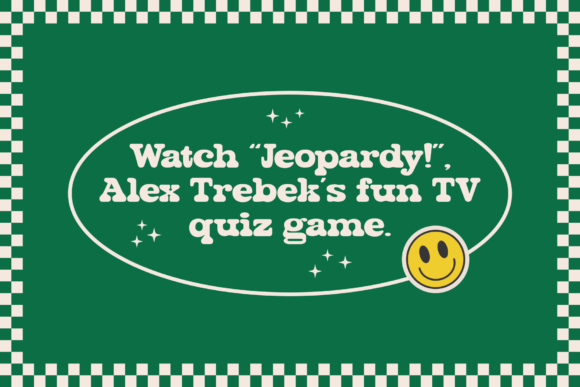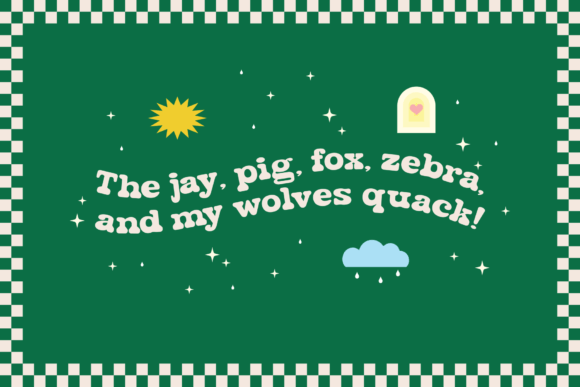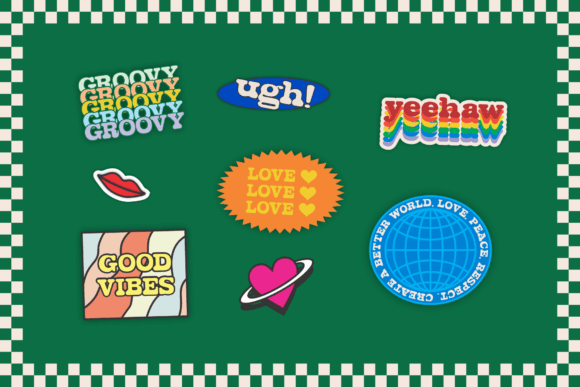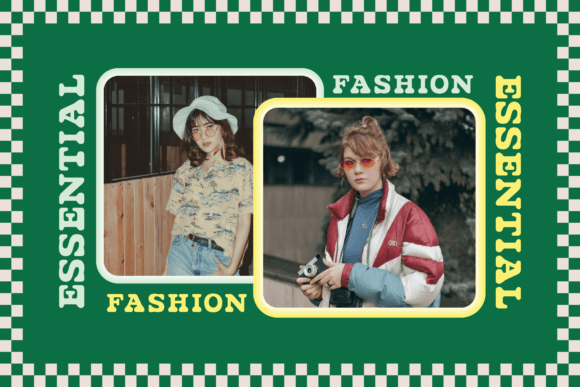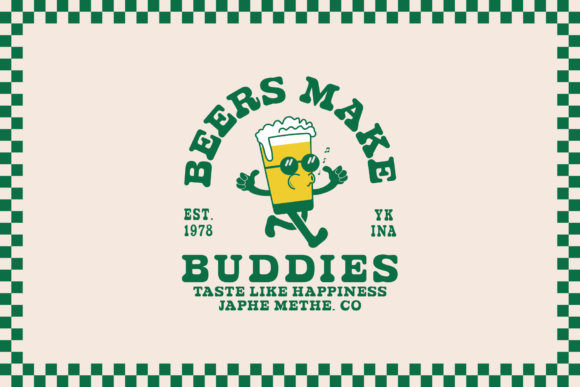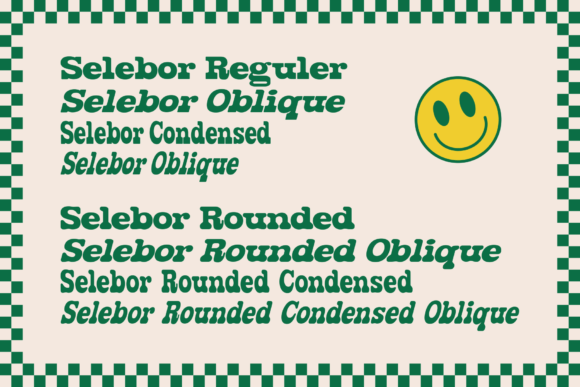
Introduction to Selebor Font
Have you ever found yourself rummaging through your old box of VHS tapes or vinyl records, and suddenly, a wave of nostalgia washes over you? The smell of worn-out cassette tapes, the vibrant colors of retro posters, and the funky soundtracks of 80s and 90s cartoons transport you to a bygone era. This feeling is what inspired the creation of the Selebor Font, a slab serif font that captures the essence of a bygone era without feeling too old.
The Selebor Font is more than just a design element – it’s a tool for designers to create high-quality, visually appealing projects that exude a sense of nostalgia and playfulness. With its transparent background and versatility, it’s perfect for creative projects that require a touch of whimsy, from designing stickers and t-shirts to food logos and branding materials.
Key Features of Selebor Font
- High-quality design with a transparent background, perfect for creative projects that require a clean and minimalist aesthetic.
- Unique characteristics include its modern and sleek design, making it perfect for branding and marketing materials.
Honest Review: Selebor Font
As a designer, I’m always on the lookout for high-quality design resources to elevate my creative projects. The Selebor Font caught my attention with its sleek and modern aesthetic, making it a great addition to any design arsenal.
- ✨ High-quality typography with precise lines and shapes
- ✨ Easy to read on both light and dark backgrounds, including transparent backgrounds
- ⚠️ Limited font weights and styles (although still suitable for most creative projects)
- ⚠️ Not ideal for complex, multi-line headings due to the font’s design
Overall, I’m impressed with the Selebor Font’s performance and versatility. The free download option is a major plus, making it a great resource for designers on a budget. If you’re looking for a clean and modern font to enhance your design project, the Selebor Font is definitely worth considering.
Selebor Font is a versatile design resource that can be used in a variety of creative projects, including graphic design, digital art, and typography. Some common use cases include:
- Creating a logo or branding identity
- Designing a website or app
- Creating a presentation or document